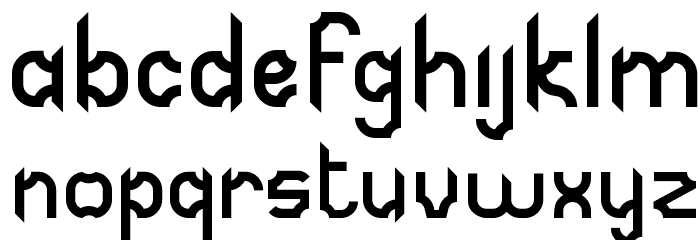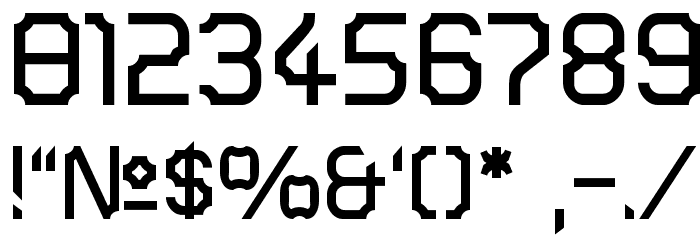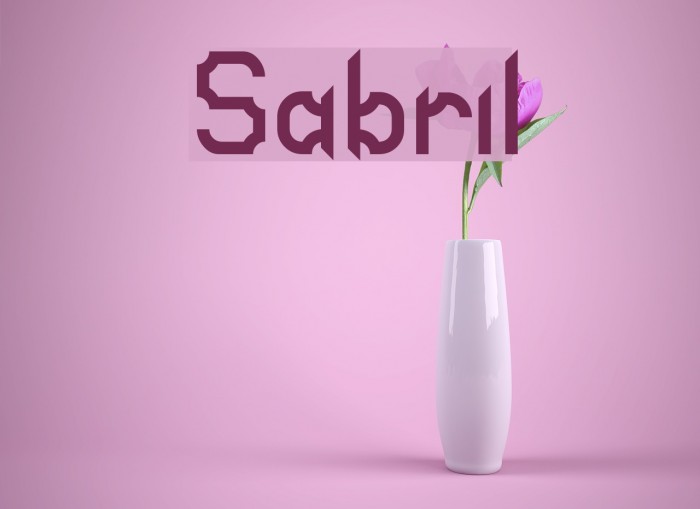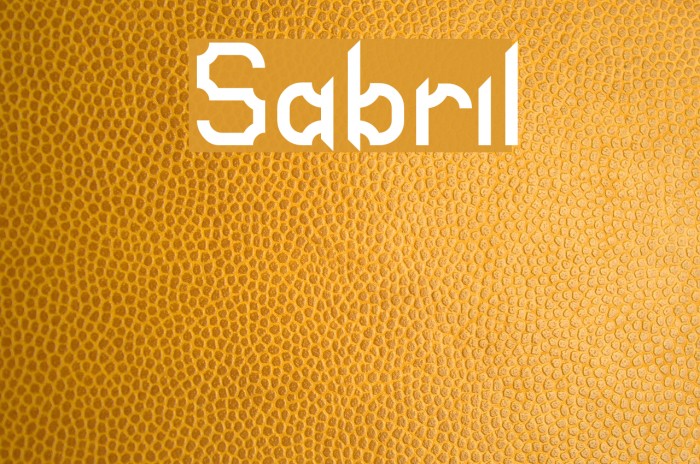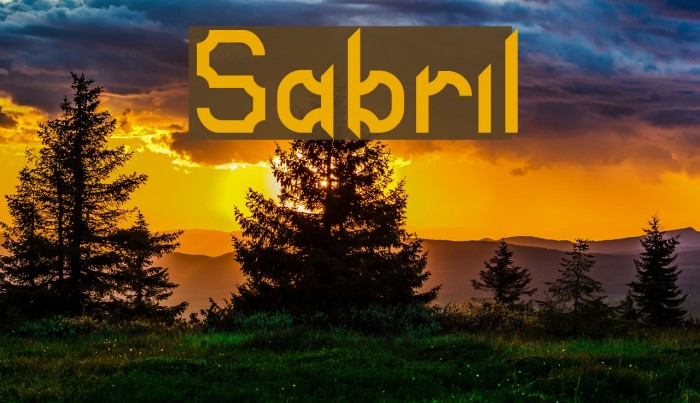
Sabril Font
This font features a unique, geometric design with angular edges and a futuristic aesthetic. The characters are bold and distinct, with a consistent stroke width that gives them a strong presence. The uppercase letters are particularly striking, with a blocky appearance that is both modern and industrial. The lowercase letters maintain the same geometric style, offering a cohesive look across the typeface. Numbers and special characters are designed to match the overall theme, ensuring versatility in various applications. The font's style is reminiscent of digital or sci-fi themes, making it suitable for projects that require a modern, edgy look.
A geometric, futuristic font with bold, angular characters.
- Proposed Projects: Ideal for sci-fi themed designs, video game graphics, tech branding, and modern posters.